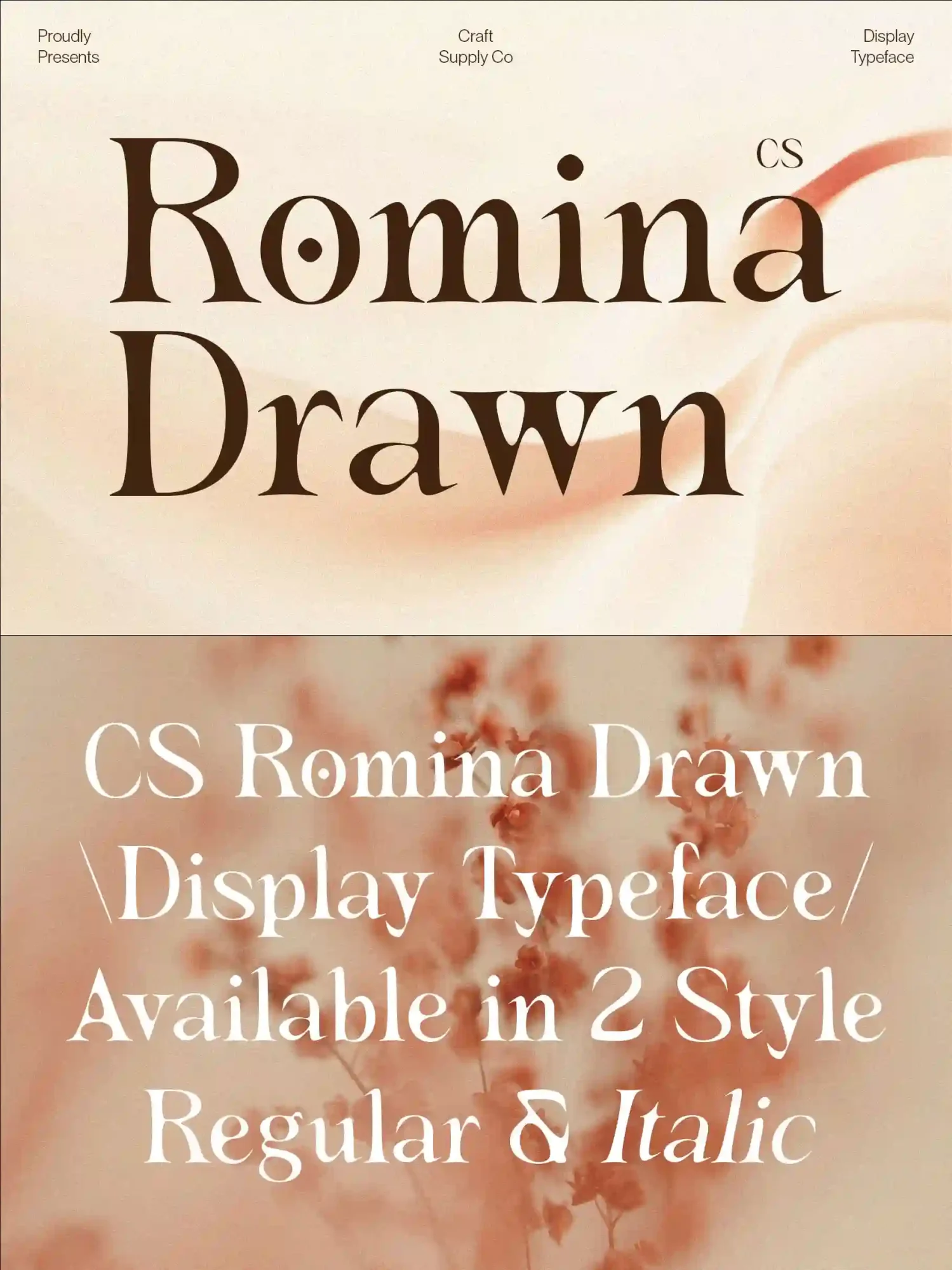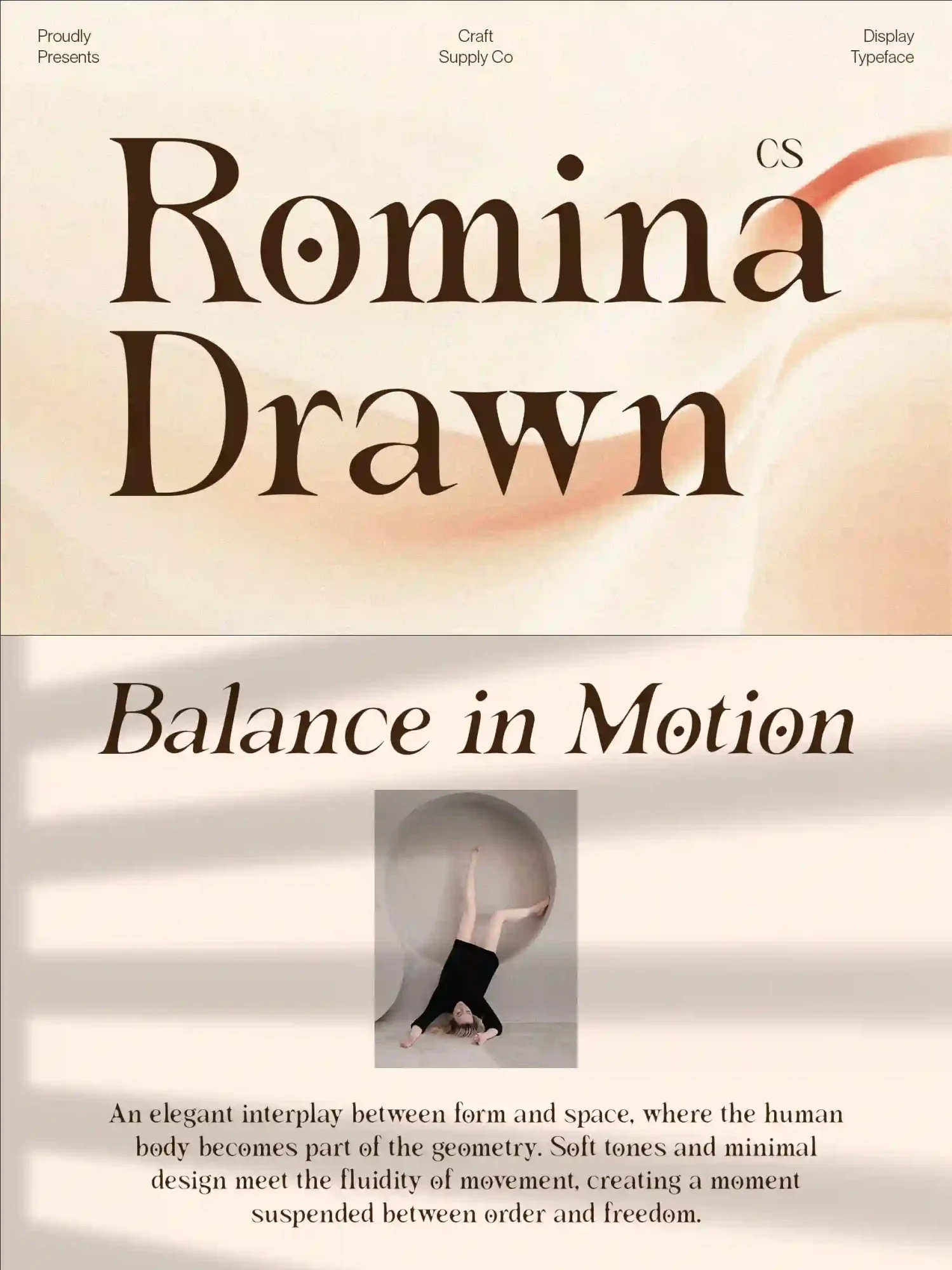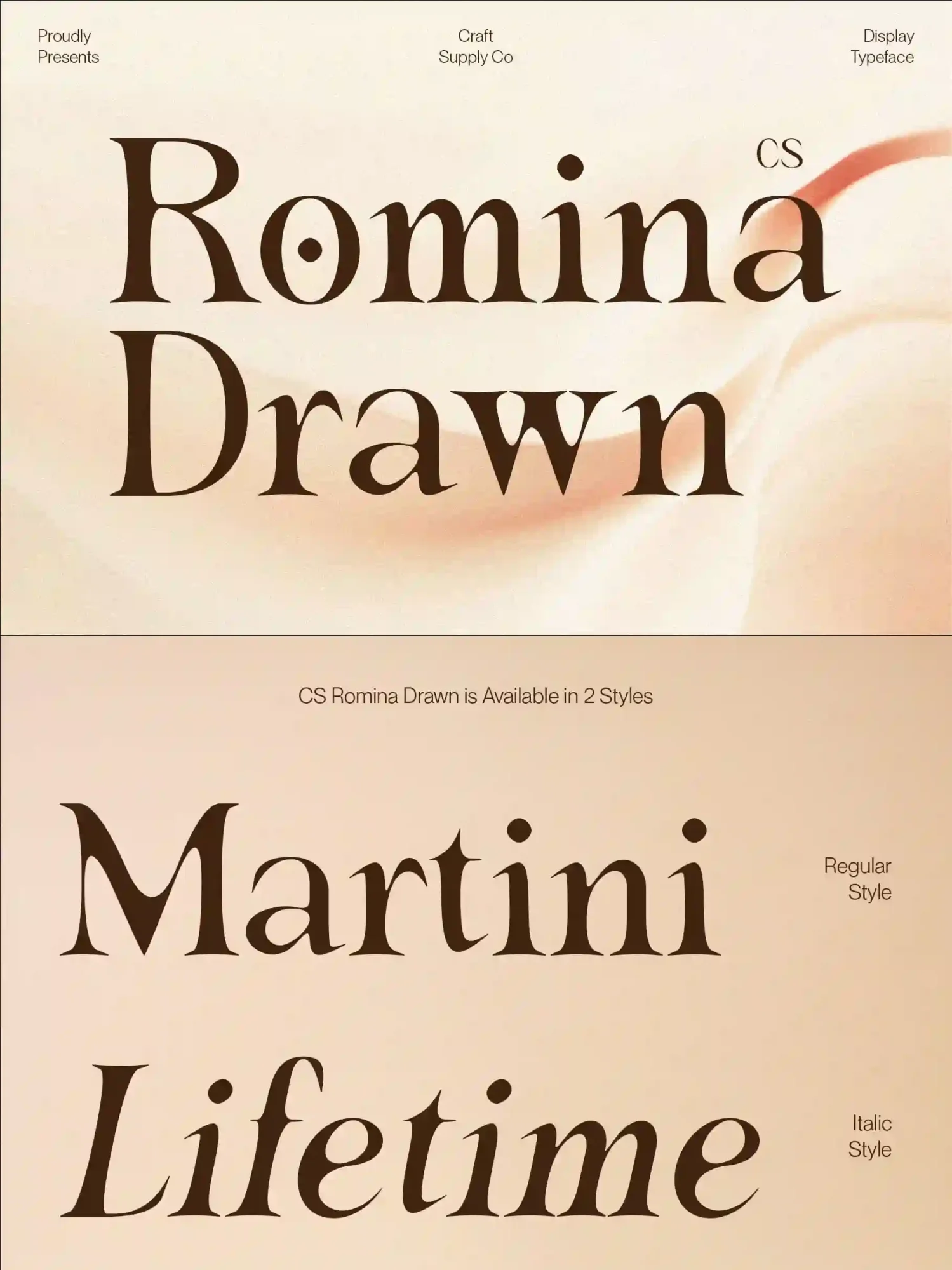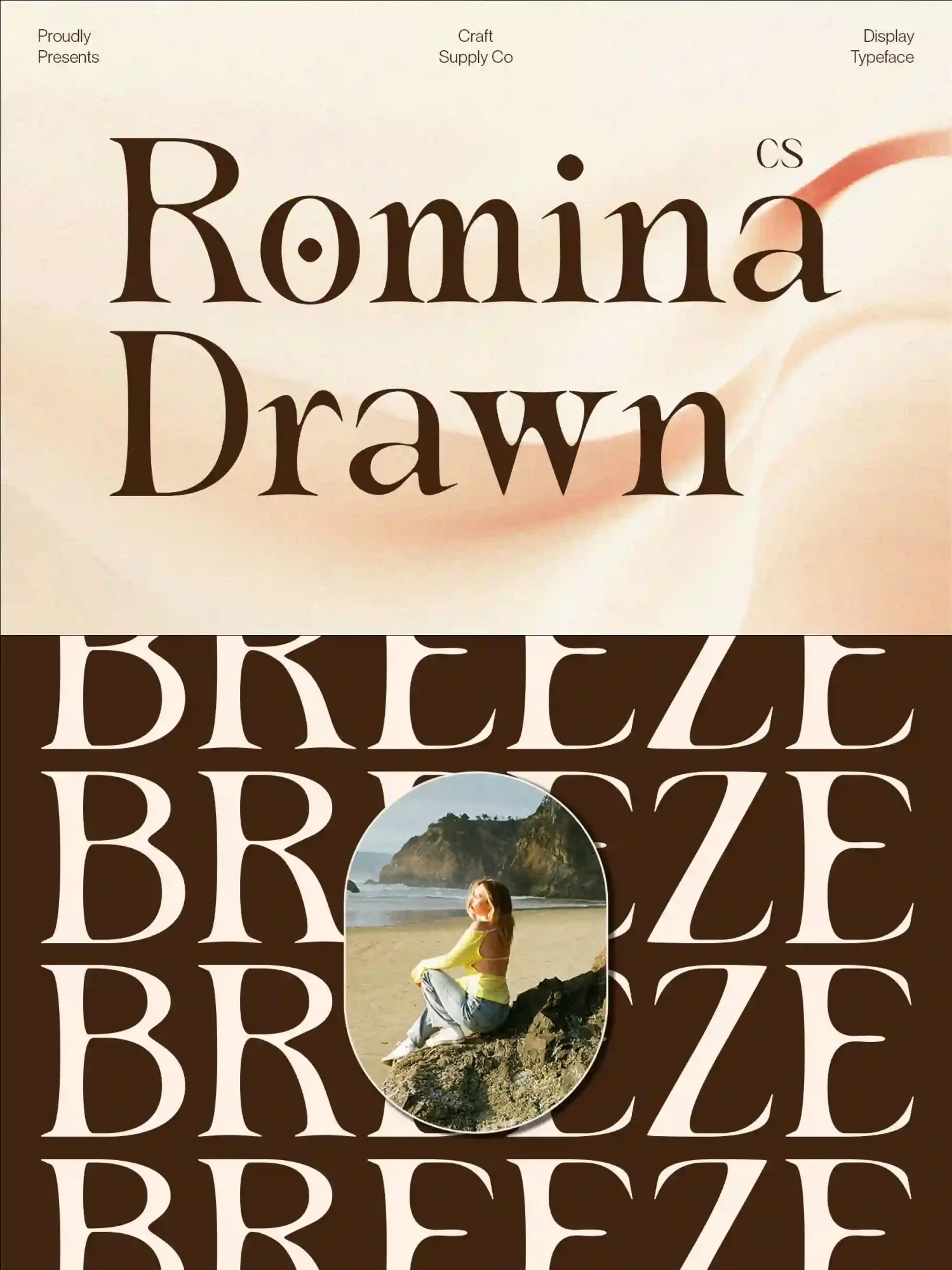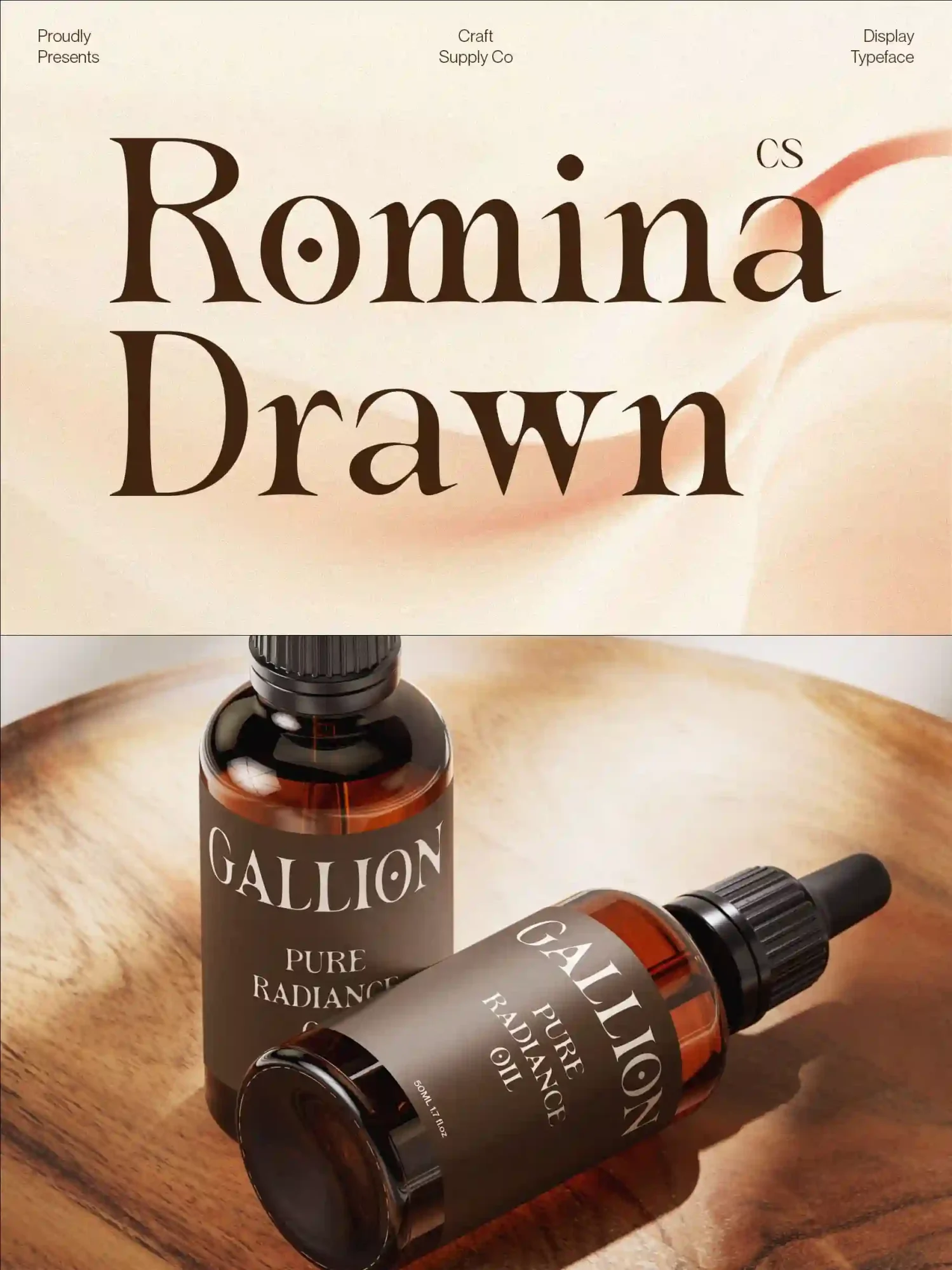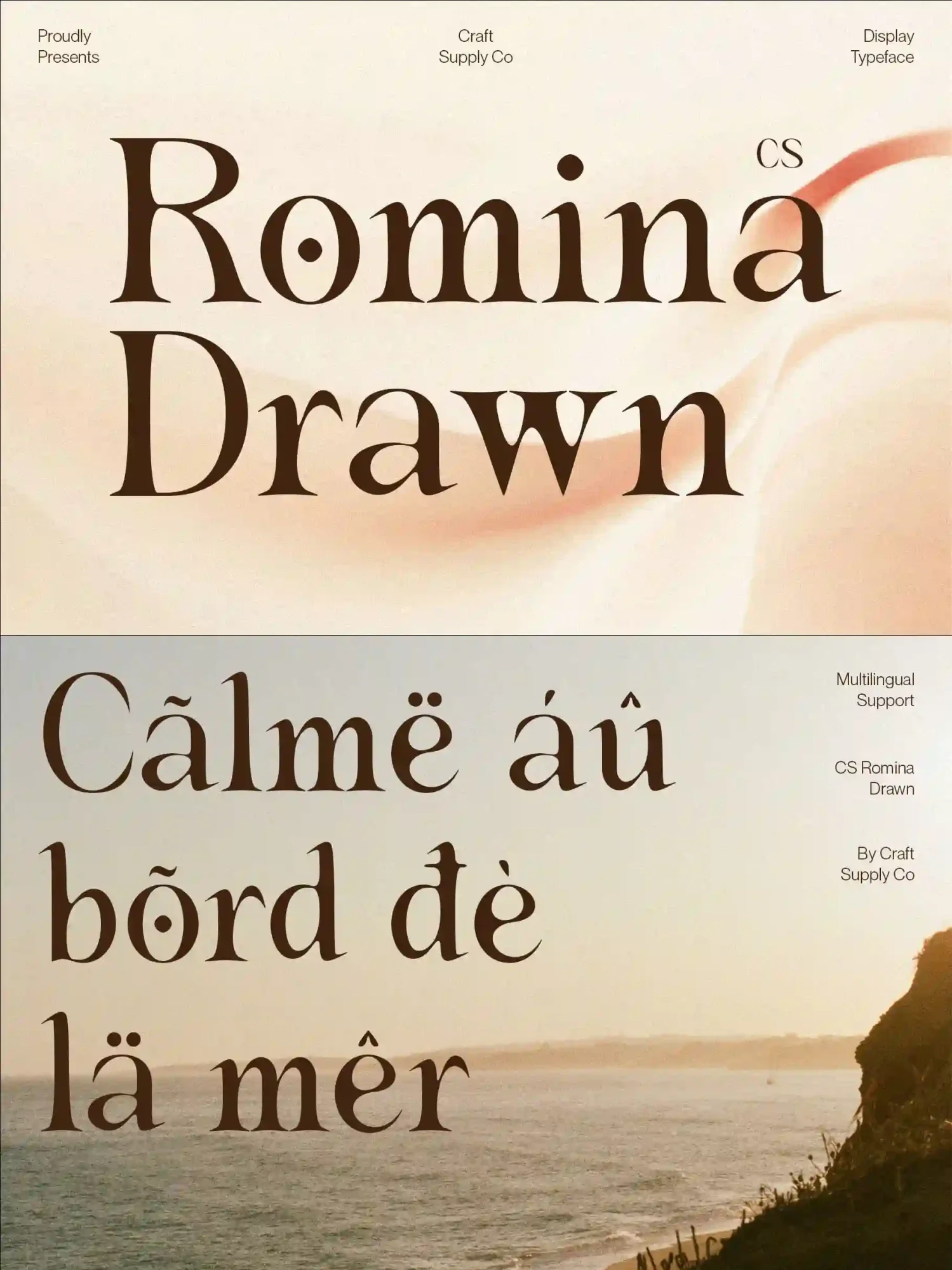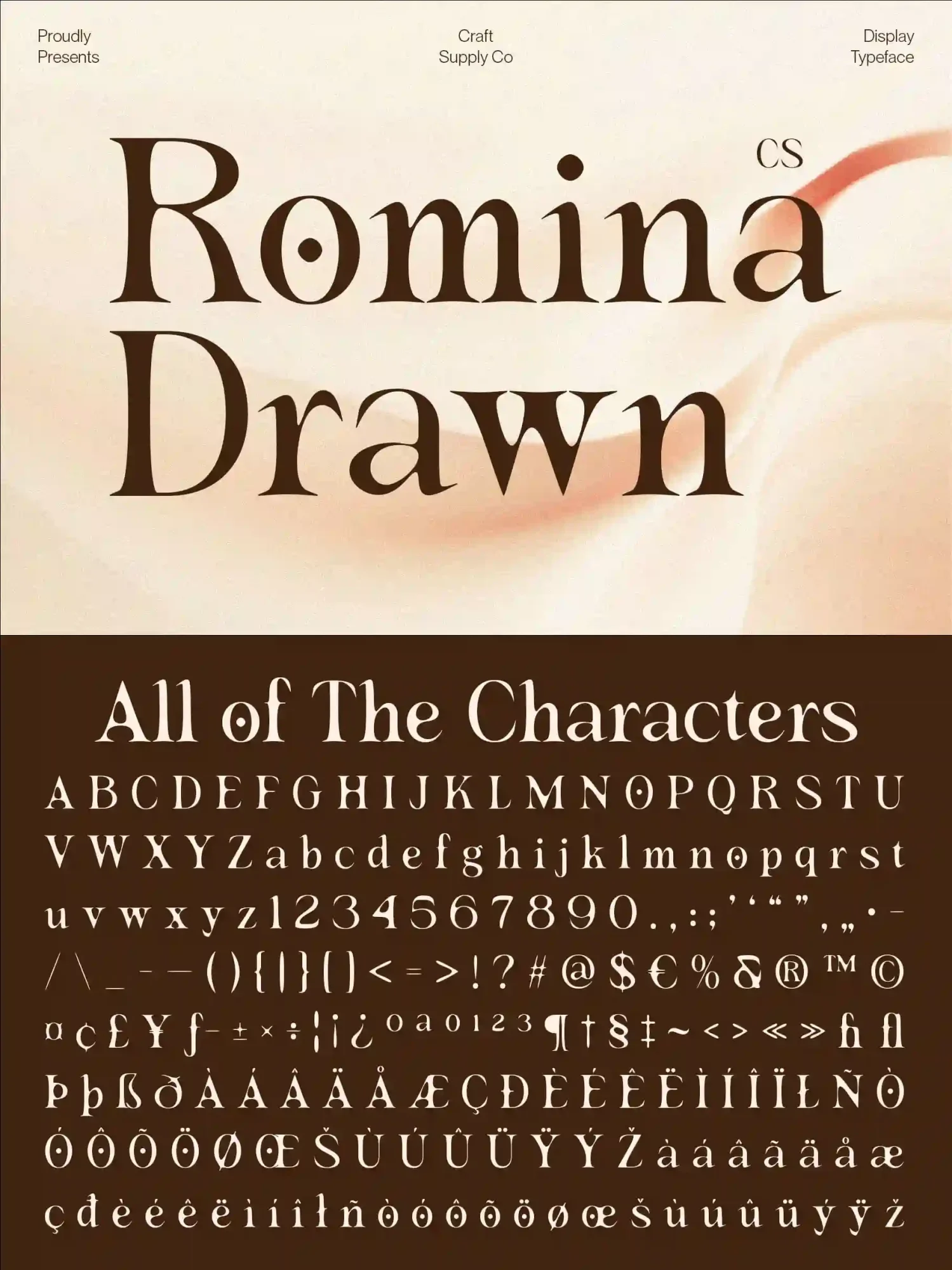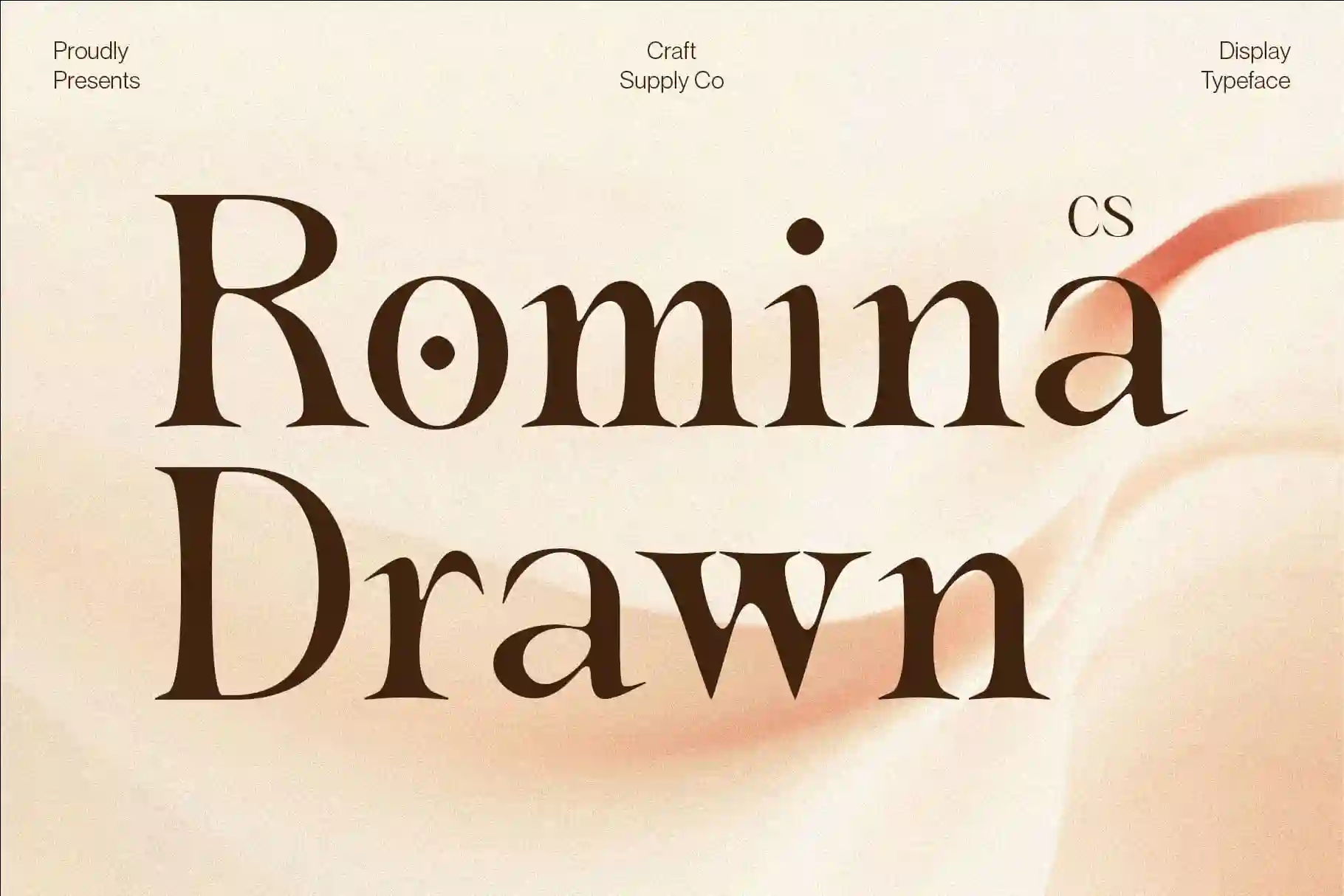
CS Romina Drawn: Modern Serif Display with Handmade Elegance
Modern Serif Display with Drawn Effect
This font is a modern serif font featuring clean, contemporary shapes. Its elegant and sophisticated design makes it ideal for projects that require a polished and visually appealing aesthetic.
Subtle Handmade Texture for Artistic Flair
Enhanced with a drawn effect, each character gains a delicate handmade texture, adding depth, individuality, and artistic personality. The manual detailing transforms simple, modern forms into expressive, captivating typography.